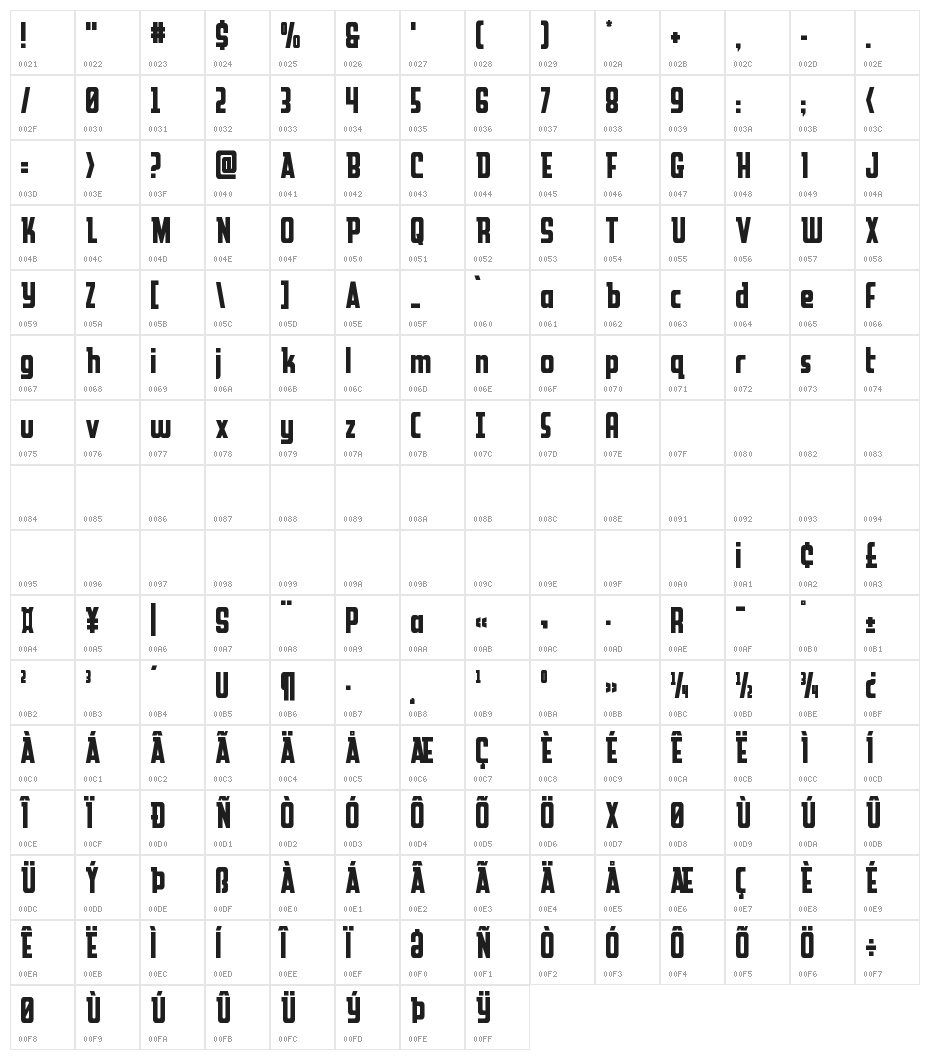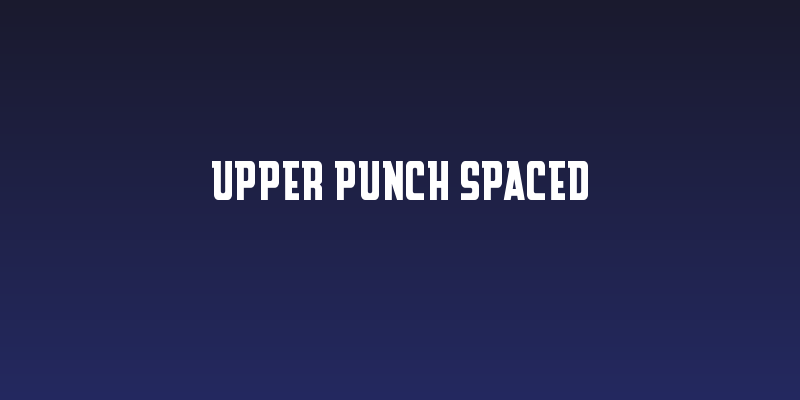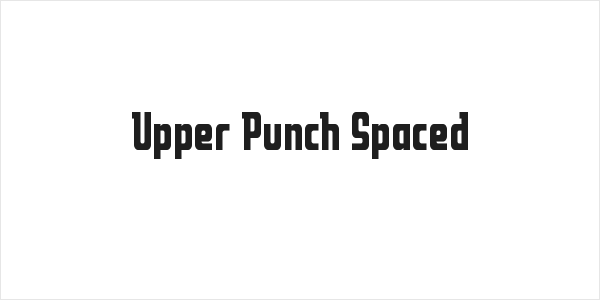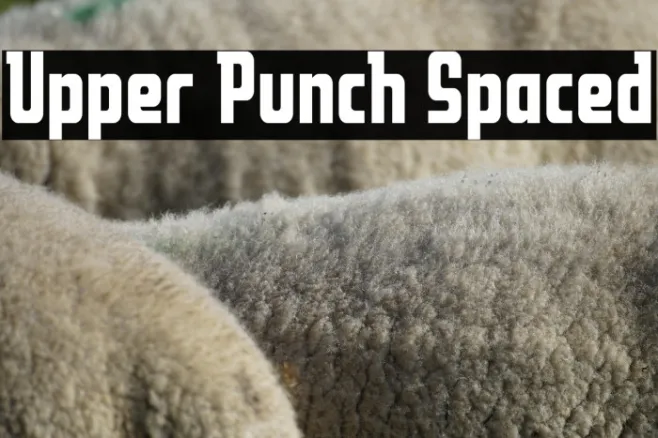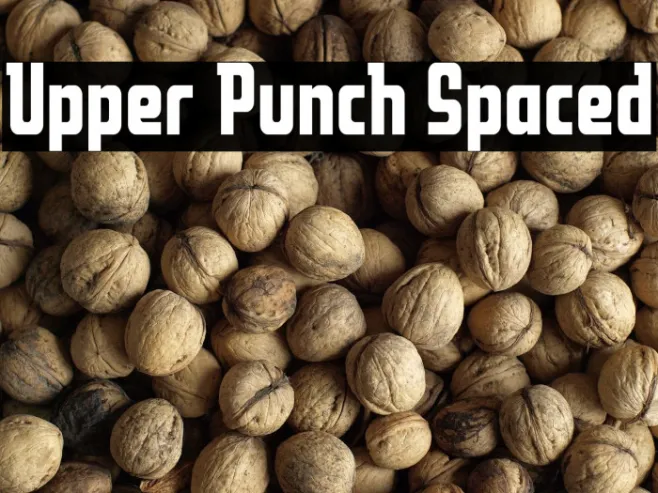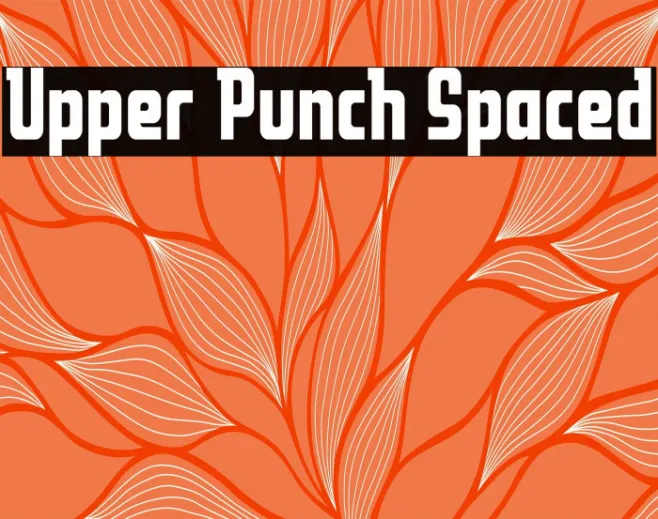
Upper Punch Spaced Font
Upper Punch Spaced Description
This font features a bold and impactful design with strong geometric shapes and a modern aesthetic. The uppercase letters are tall and commanding, while the lowercase letters maintain a consistent weight, offering a cohesive look. The numerals are equally bold, ensuring readability and emphasis. Special characters are designed to match the overall boldness, making them stand out. The font's structure is clean and precise, with a slight industrial feel, making it suitable for attention-grabbing headlines and branding.